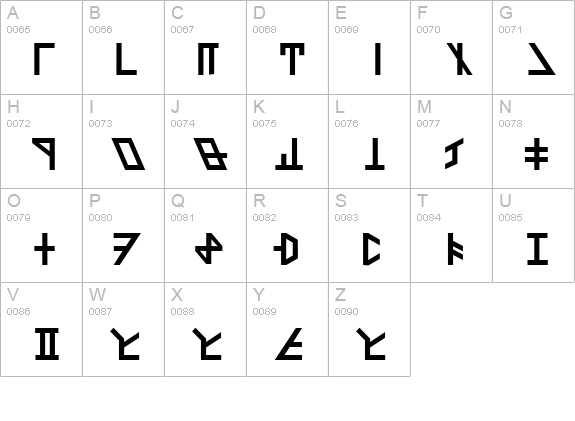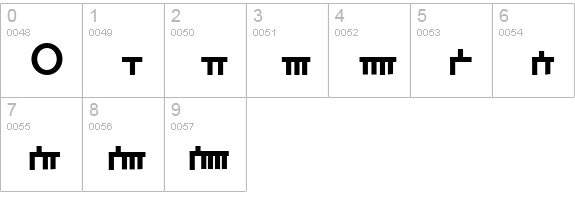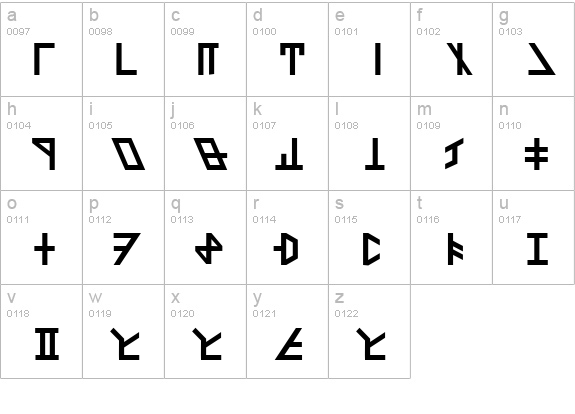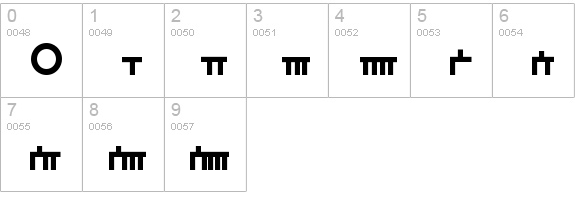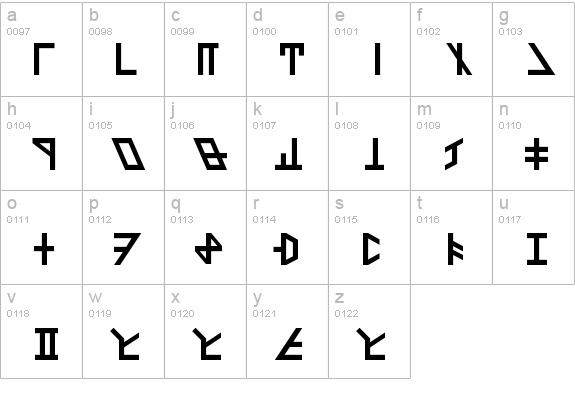
Dethek Dwarvish-FR Font Details
Dethek Dwarvish-FR font is a stunning and unique typeface that captures the essence of Dwarvish craftsmanship and tradition. With its intricate design and intricate details, this font is perfect for adding a touch of fantasy and mystery to any project. Inspired by the ancient runic script of the Dwarves, Dethek Dwarvish-FR font features bold lines and intricate curves that give it a strong and powerful look. Whether you're creating a poster, logo, or any other design project, this font will make a bold statement and leave a lasting impression. The best part? Dethek Dwarvish-FR font is available for free download at FontsMarket.com. So you can add this stunning font to your collection without having to spend a dime. Don't miss out on the opportunity to enhance your designs with this captivating and unique typeface.